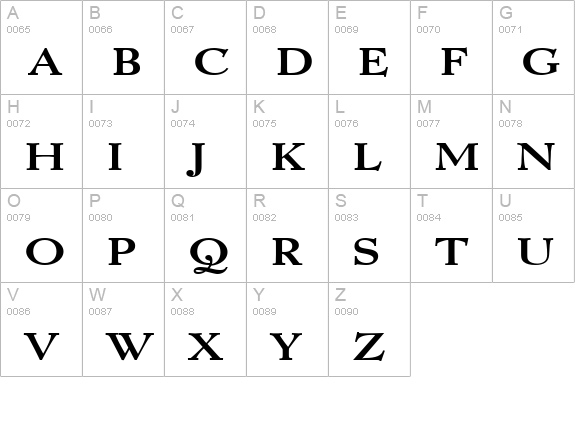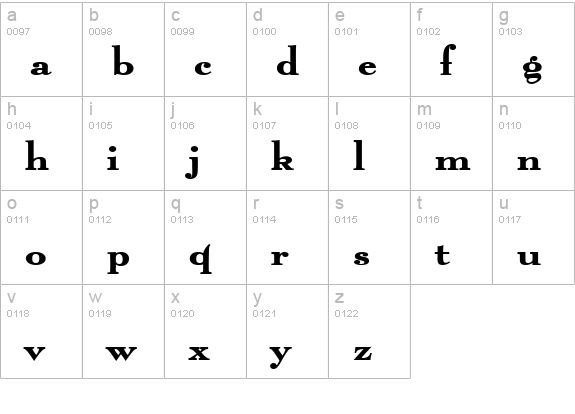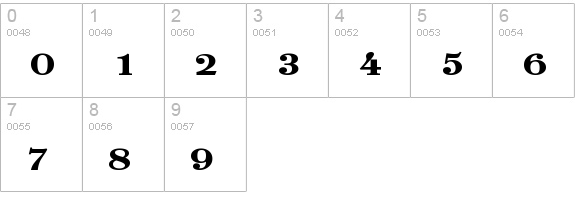
Luciano Wide Bold is a strong, high-contrast, extended-width variant in the Luciano typeface family \xE2\x80\x94 well suited to headlines, attention-grabbing titles, and strong calls-to-action.
Luciano Wide Bold font is a bold and impactful typeface that exudes modernity and confidence. Its wide and sturdy letterforms make it perfect for headlines, titles, and other design projects that require a strong visual presence. The clean lines and sharp edges of this font give it a sleek and professional look, making it a versatile choice for both print and digital applications. And the best part? Luciano Wide Bold font is available for free download at FontsMarket.com! Whether you're a designer looking to add a bold touch to your projects or a business owner in need of a stylish font for branding materials, Luciano Wide Bold has got you covered. Download it now and elevate your designs with this striking and eye-catching typeface.